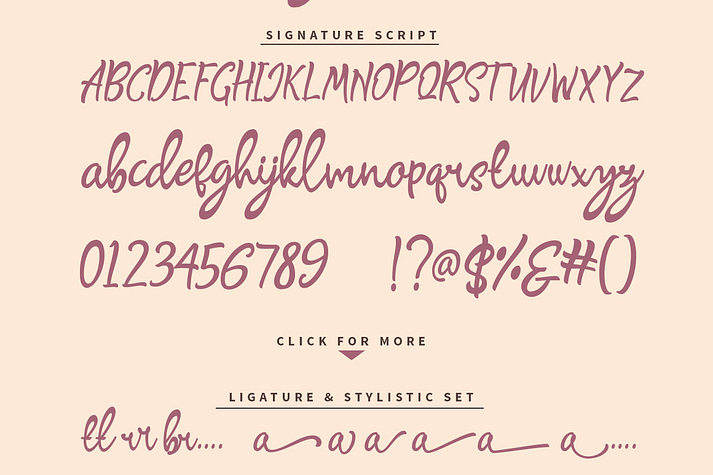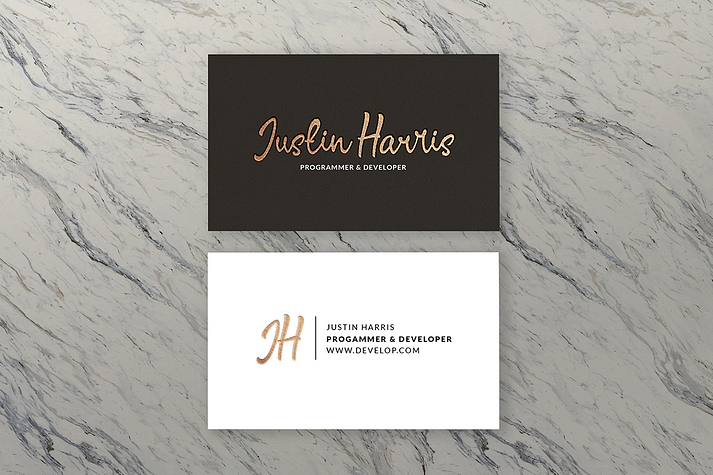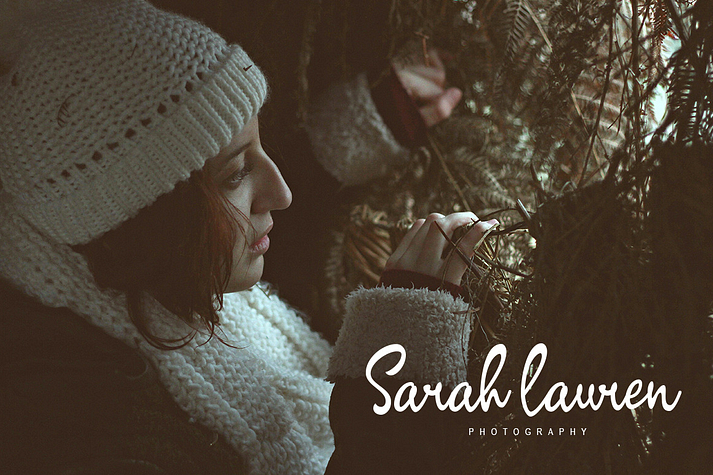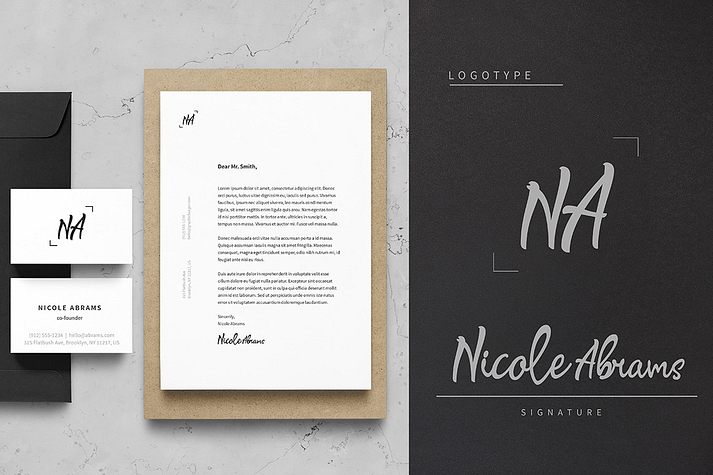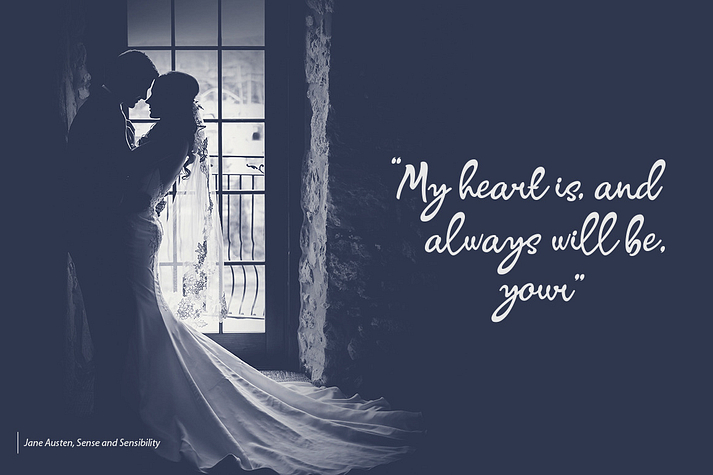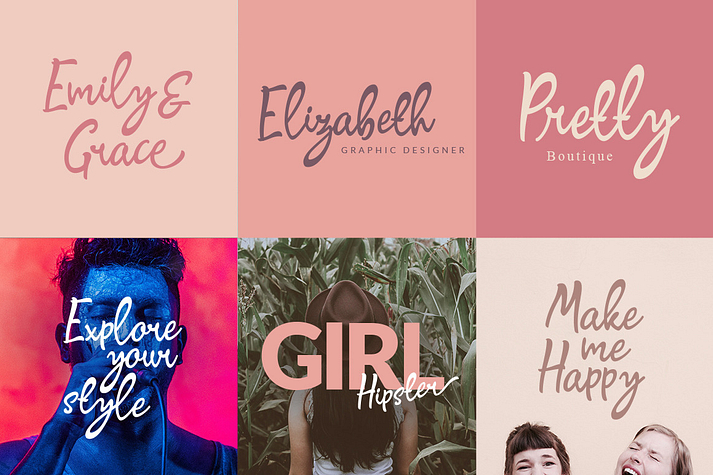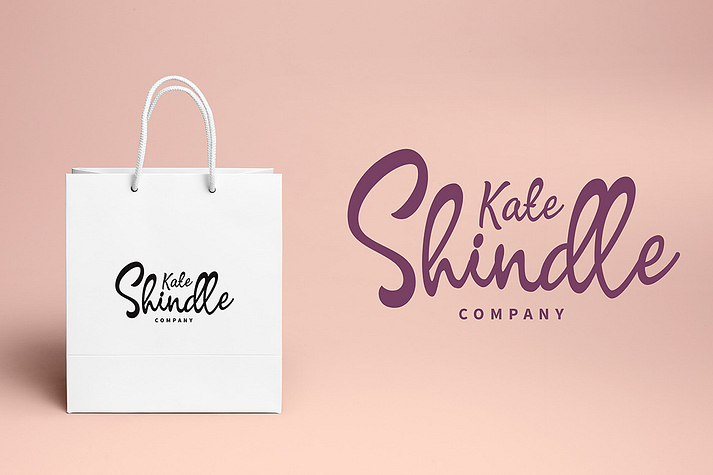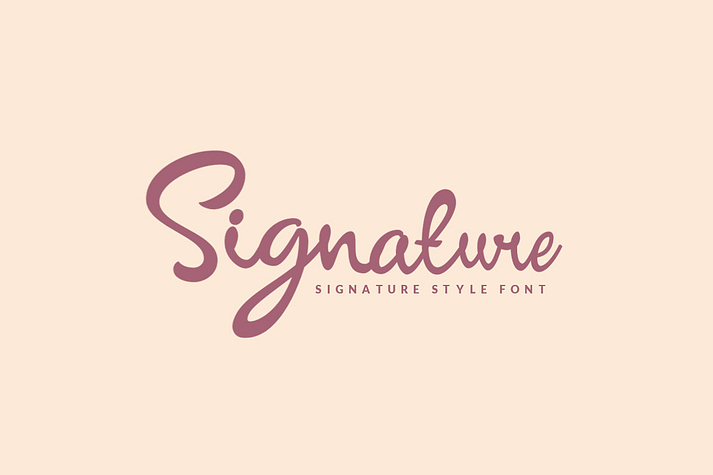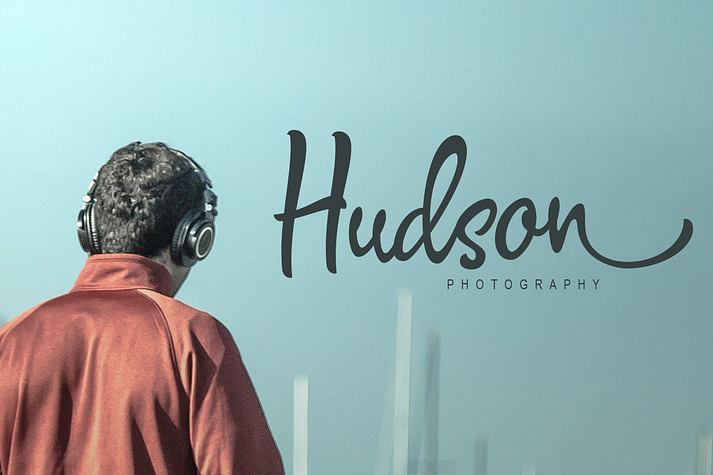
Signature
Signature is a font family published by Showuptype.
Signature script is handmade signature style font with stunning characters. Ideal for logos, name tag, handwritten quotes, product packaging, merchandise, social media & greeting cards. It contains a full set of lower & uppercase letters, a large range of punctuation, numerals, and multilingual support.
The font also contains several ligatures and contextual alternates for lower case characters, accessible in the Adobe Illustrator Glyphs panel, or under Stylistic Alternates in the Adobe Photoshop OpenType menu.